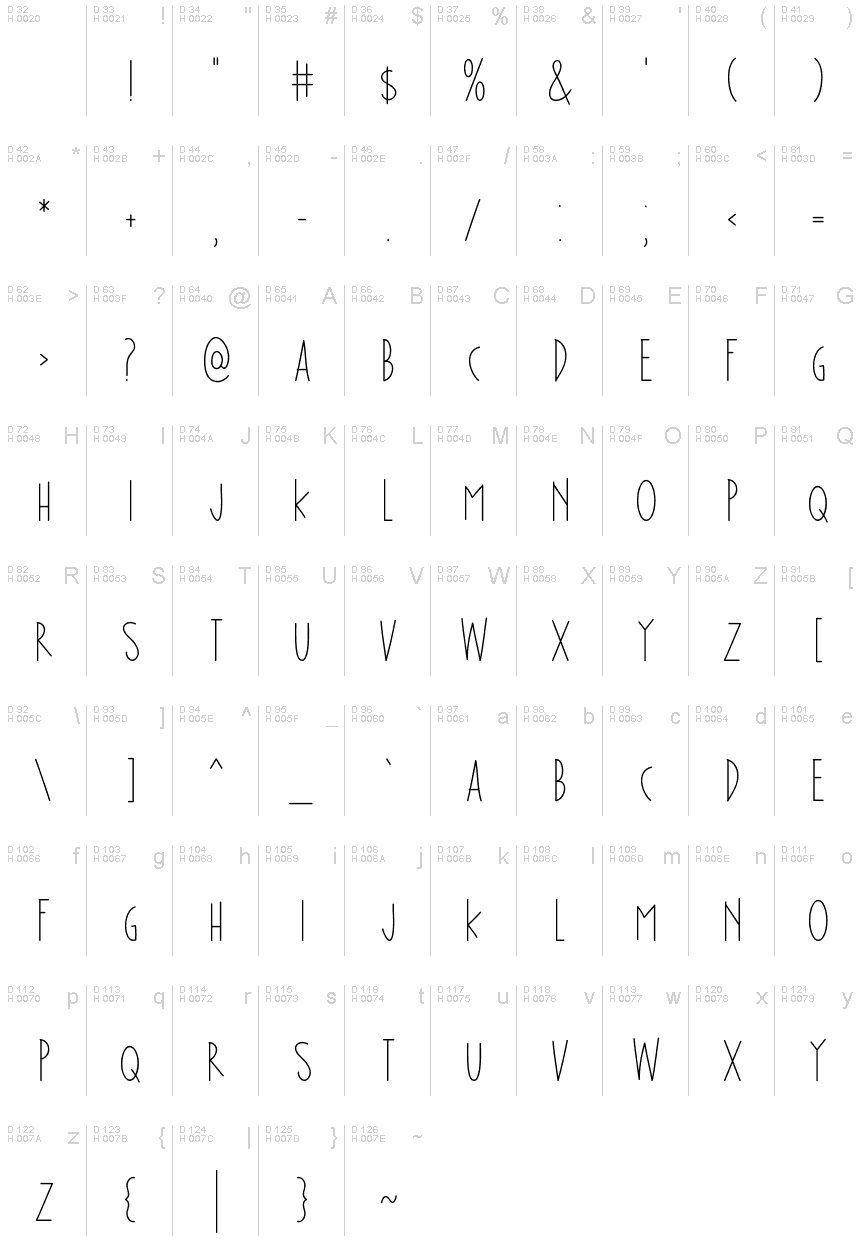
Leader Santa
Say hello to the adorable and playful Leader Santa font designed by Md Shohail Bhuian. Its light weight and condensed width make it a perfect choice for creating fun and quirky designs, such as greeting cards, invitations, posters, and social media graphics. Its handwritten style instantly adds a personal touch to any project you use it for. Whether you want to give your brand a unique personality or add some character to your blog posts, Leader Santa is the perfect font choice for all your creative endeavors. Get ready to spread some cheer with this cute little gem!